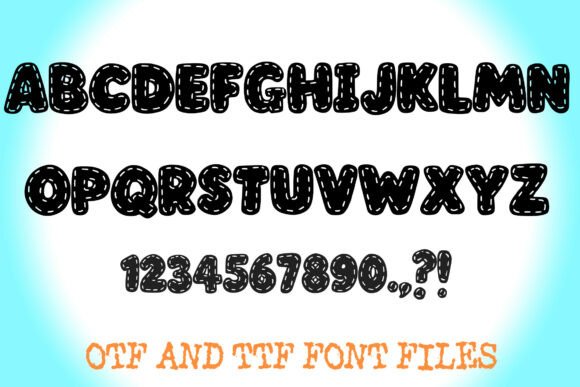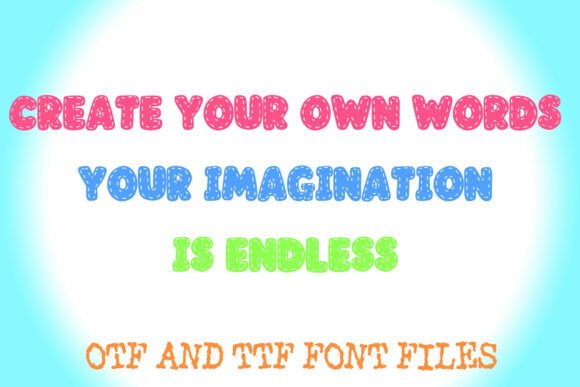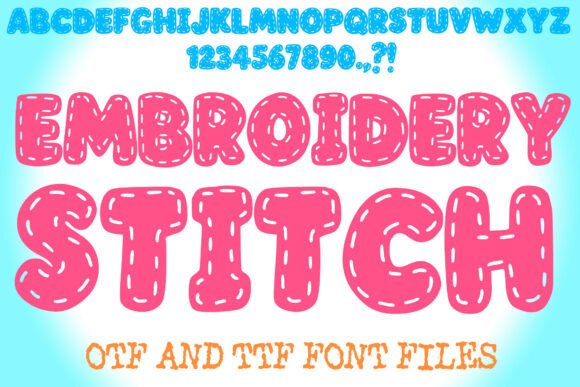
Introducing Embroidery Stitch Sewing Alphabet Letter Font
Are you looking for a font that adds a personal touch to your designs? Do you want to bring the charm of hand-sewn lettering to your digital projects? Look no further than Embroidery Stitch Sewing Alphabet Letter Font. This playful and tactile display font is perfect for designers and crafters who want to add a touch of handmade warmth to their work.
The Inspiration Behind Embroidery Stitch
Embroidery Stitch is a font that celebrates the art of hand-sewing and embroidery. Each bold, rounded letterform is adorned with stitched detailing, mimicking the look of embroidery thread looping through fabric. The result is a font that looks like it was stitched together with love and care.
The friendly curves and soft proportions of Embroidery Stitch give it a warm, approachable personality. This font is perfect for projects that require a personal touch, such as handmade crafts, DIY tutorials, or children’s products.
Key Features of Embroidery Stitch
- Playful and Tactile Design: Embroidery Stitch is a display font that features bold, rounded letterforms with stitched detailing.
- Handmade Look and Feel: The font mimics the look of hand-sewn lettering, adding a touch of warmth and personality to your designs.
- Perfect for Handmade and DIY Projects: This font is ideal for designers and crafters who want to add a personal touch to their work.
Uses for Embroidery Stitch
Embroidery Stitch is a versatile font that can be used in a variety of design projects. Here are a few ideas to get you started:
- Handmade Crafts: Use Embroidery Stitch to add a personal touch to your handmade crafts, such as knitted items, sewing projects, or paper crafts.
- DIY Tutorials: Add a touch of warmth and personality to your DIY tutorials with Embroidery Stitch.
- Children’s Products: This font is perfect for children’s products, such as toys, books, or educational materials.
- Stationery and Gift Tags: Use Embroidery Stitch to create custom stationery, gift tags, or greeting cards.
Tips for Using Embroidery Stitch
Here are a few tips for using Embroidery Stitch in your designs:
- Experiment with Colors: Embroidery Stitch looks great in bright colors, but it can also be used in subtle tones for a cozier feel.
- Mix and Match with Other Fonts: Combine Embroidery Stitch with other fonts for a unique and interesting look.
- Use it for Headings and Titles: Embroidery Stitch is perfect for headings and titles, but it can also be used for body text in smaller sizes.
Embroidery Stitch Sewing Alphabet Letter Font is a unique and versatile font that adds a personal touch to any design project. With its playful and tactile design, handmade look and feel, and versatile use, this font is perfect for designers and crafters who want to bring the charm of hand-sewn lettering to their work. Whether you’re working on handmade crafts, DIY tutorials, or children’s products, Embroidery Stitch is the perfect font for you.